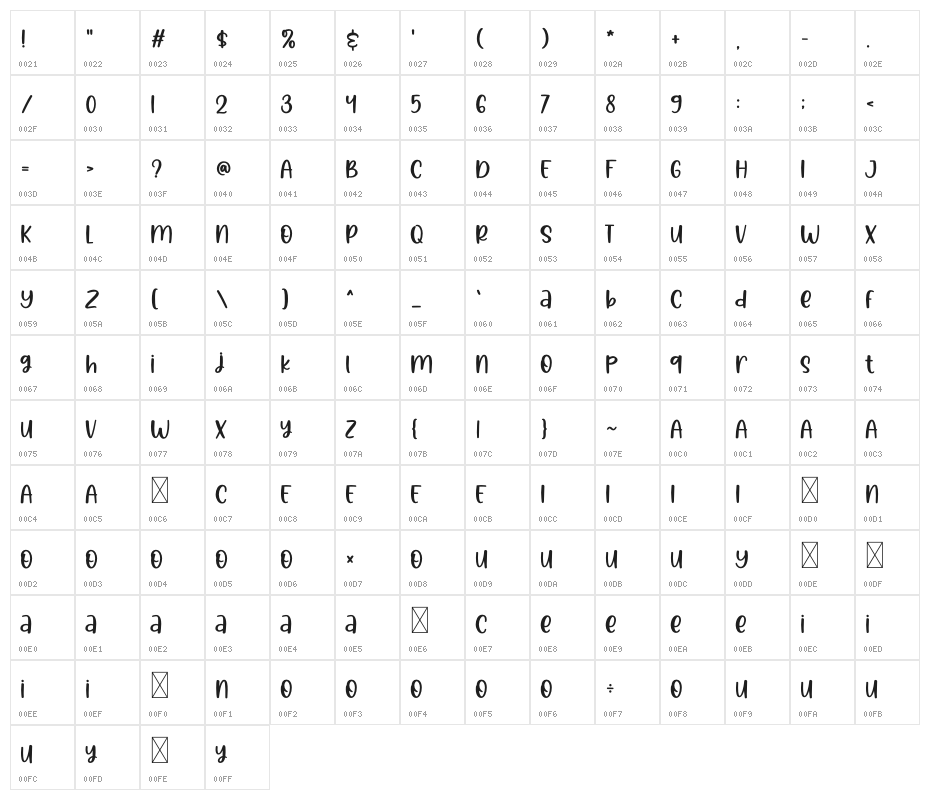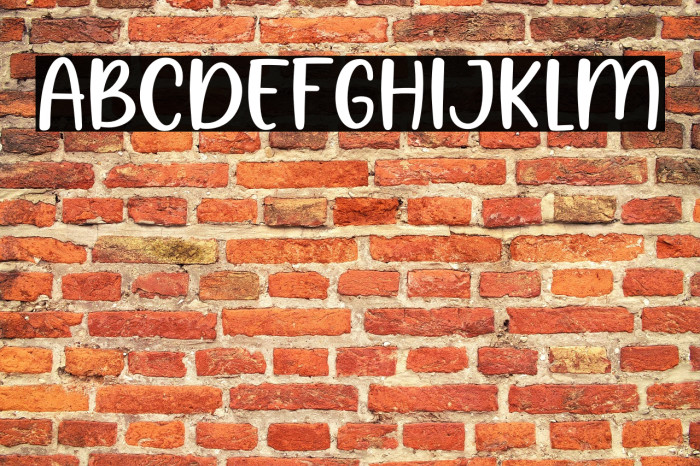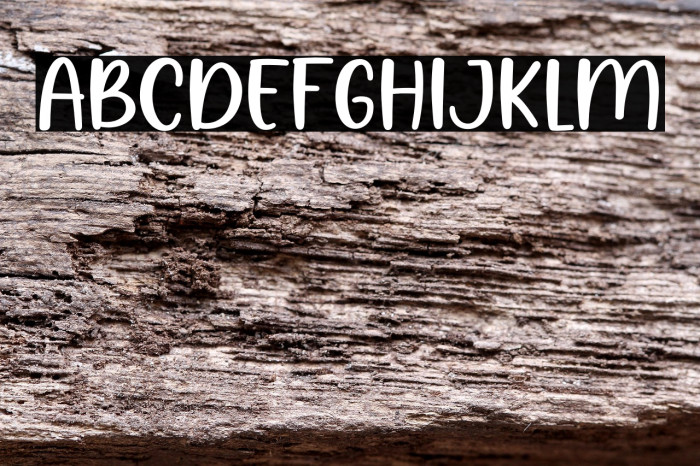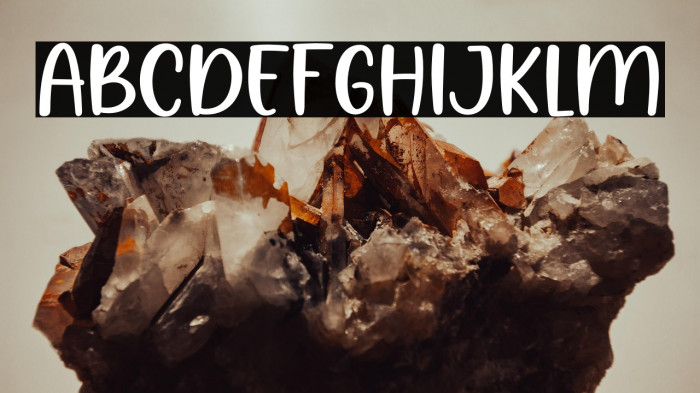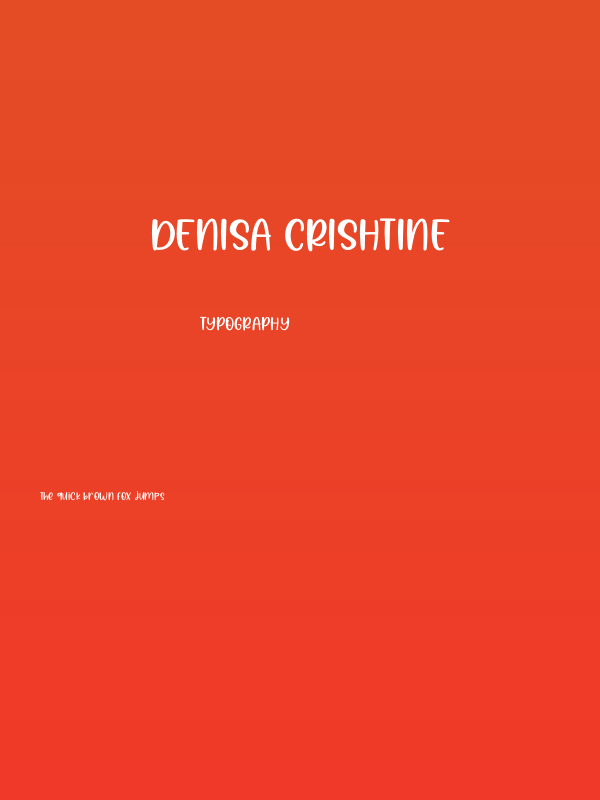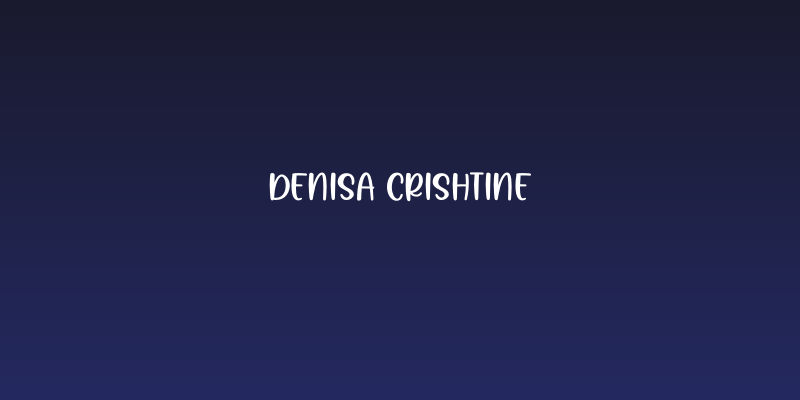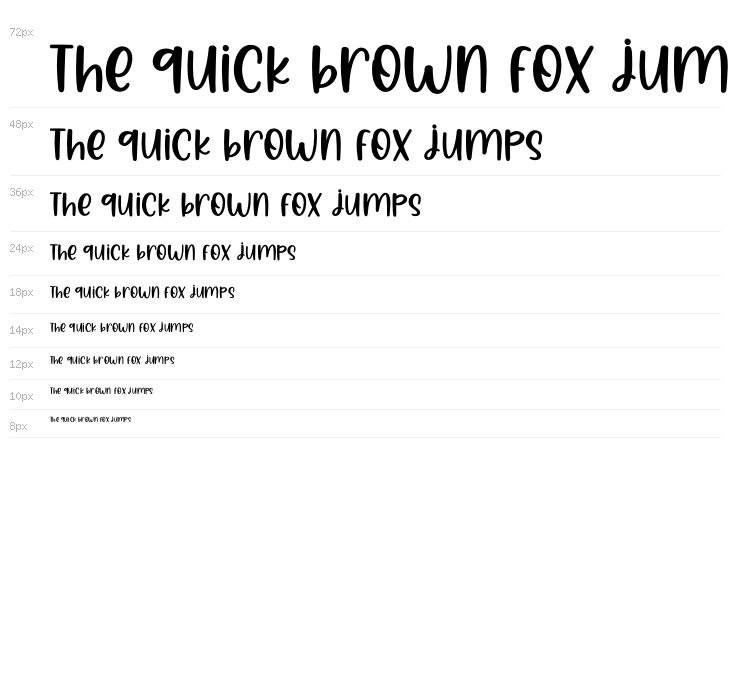
Denisa Crishtine Font
Denisa Crishtine Description
A playful, handwritten font with rounded edges and a casual style.
| Use Case | Logos, Invitations, Posters |
| Proposed Projects | Greeting cards, children's books, casual branding. |